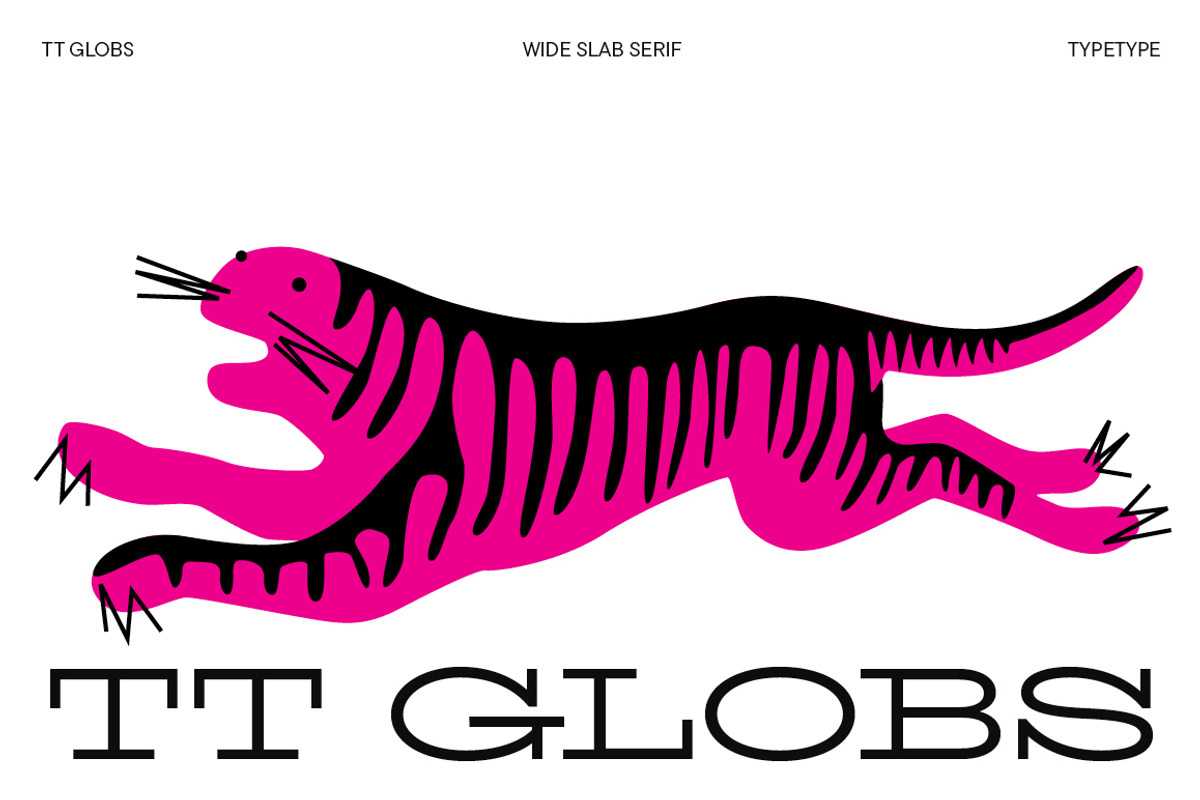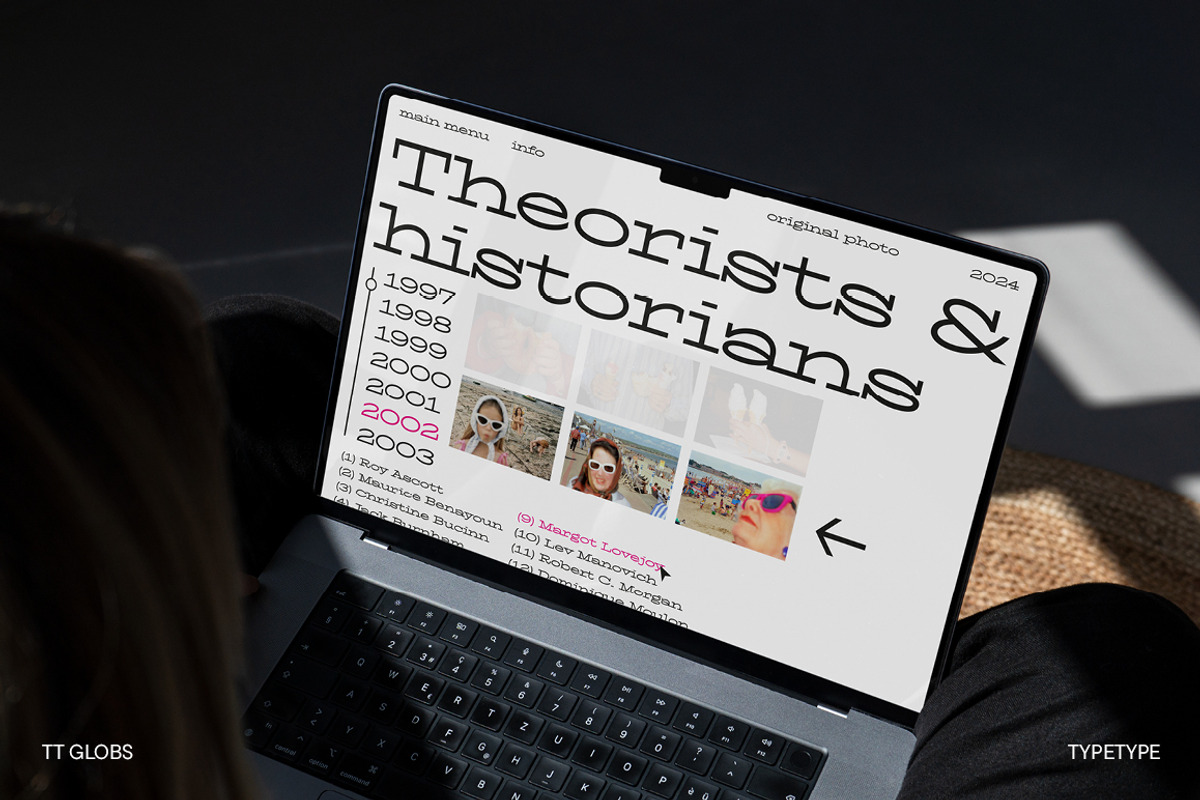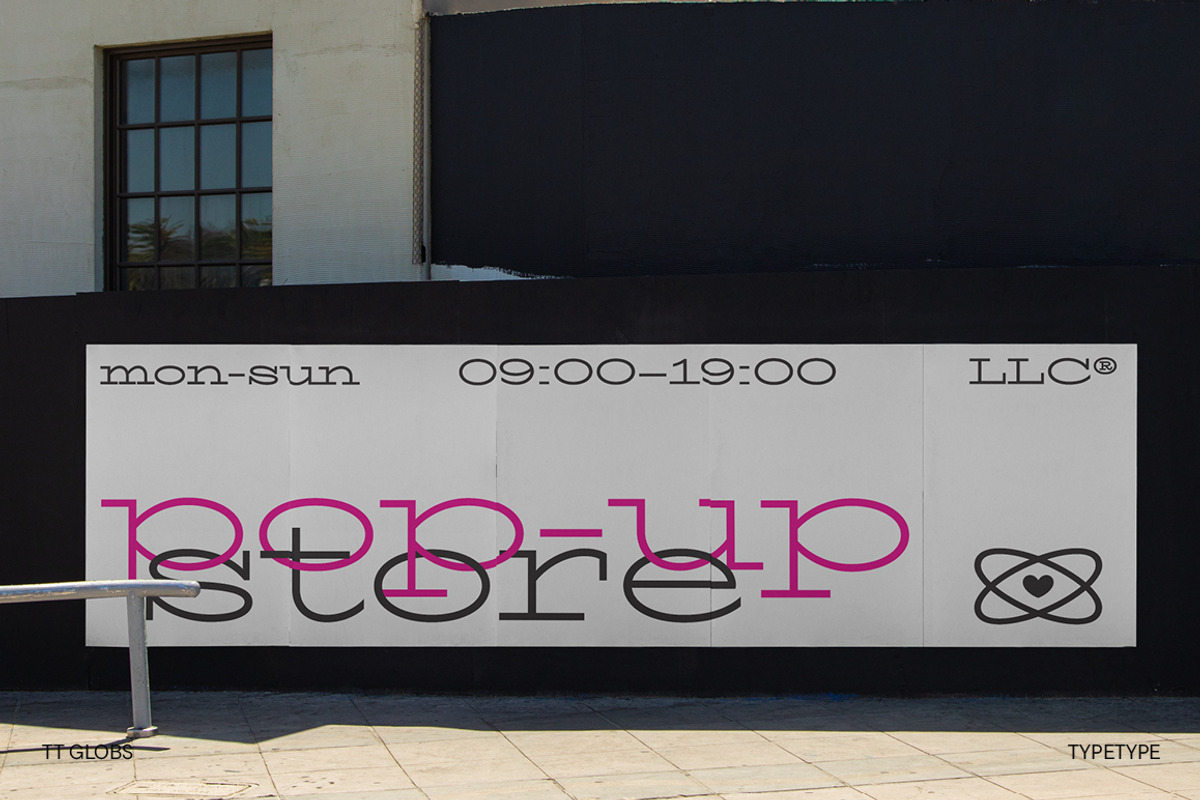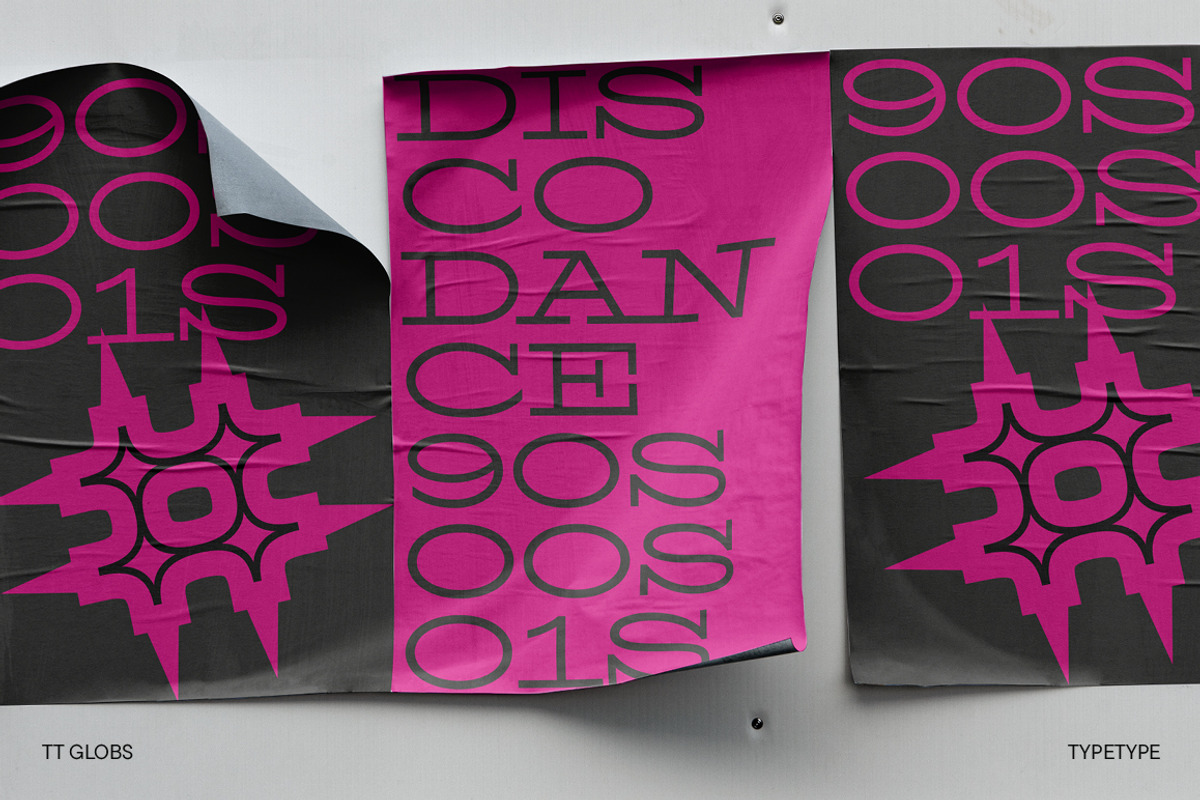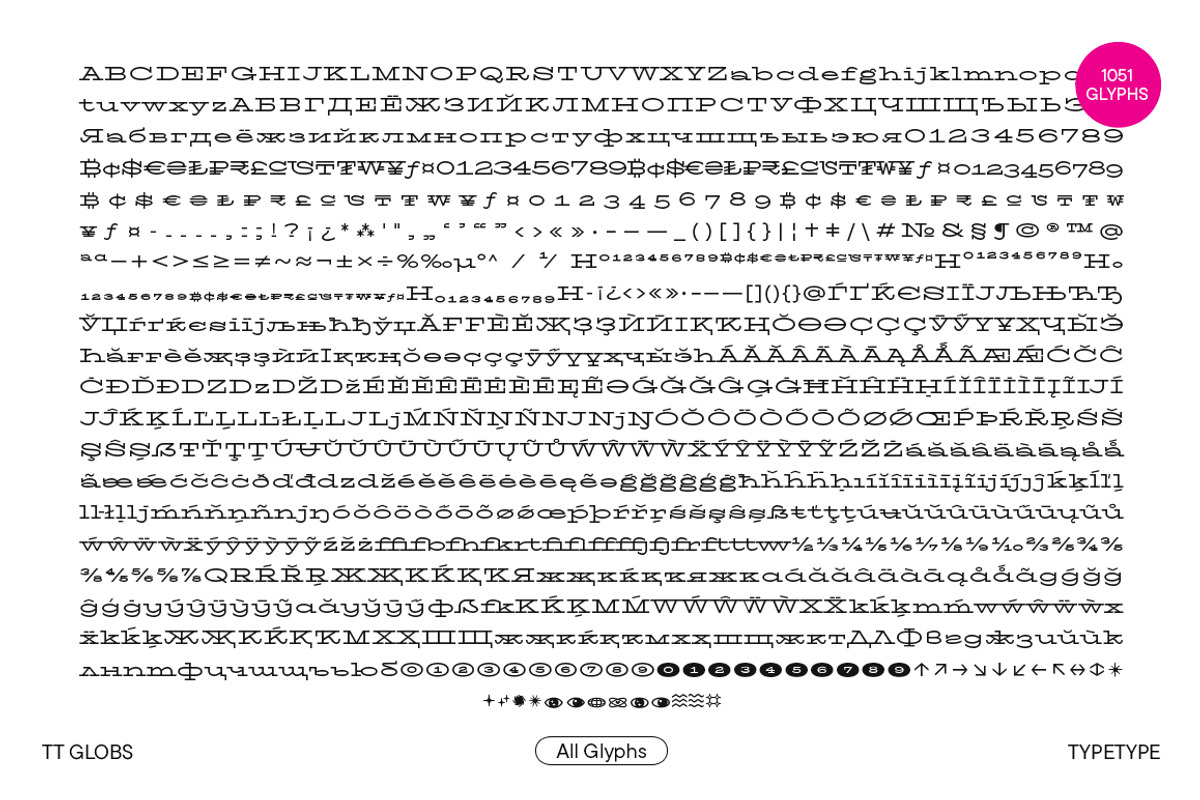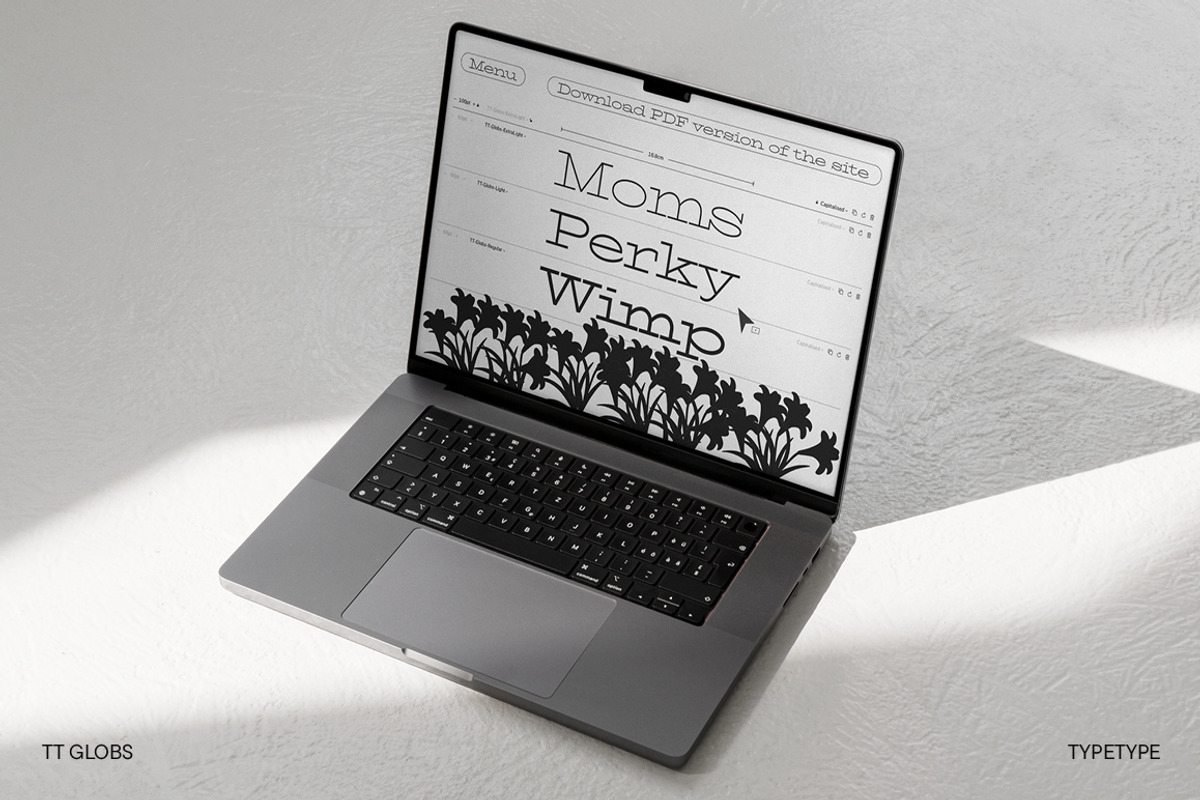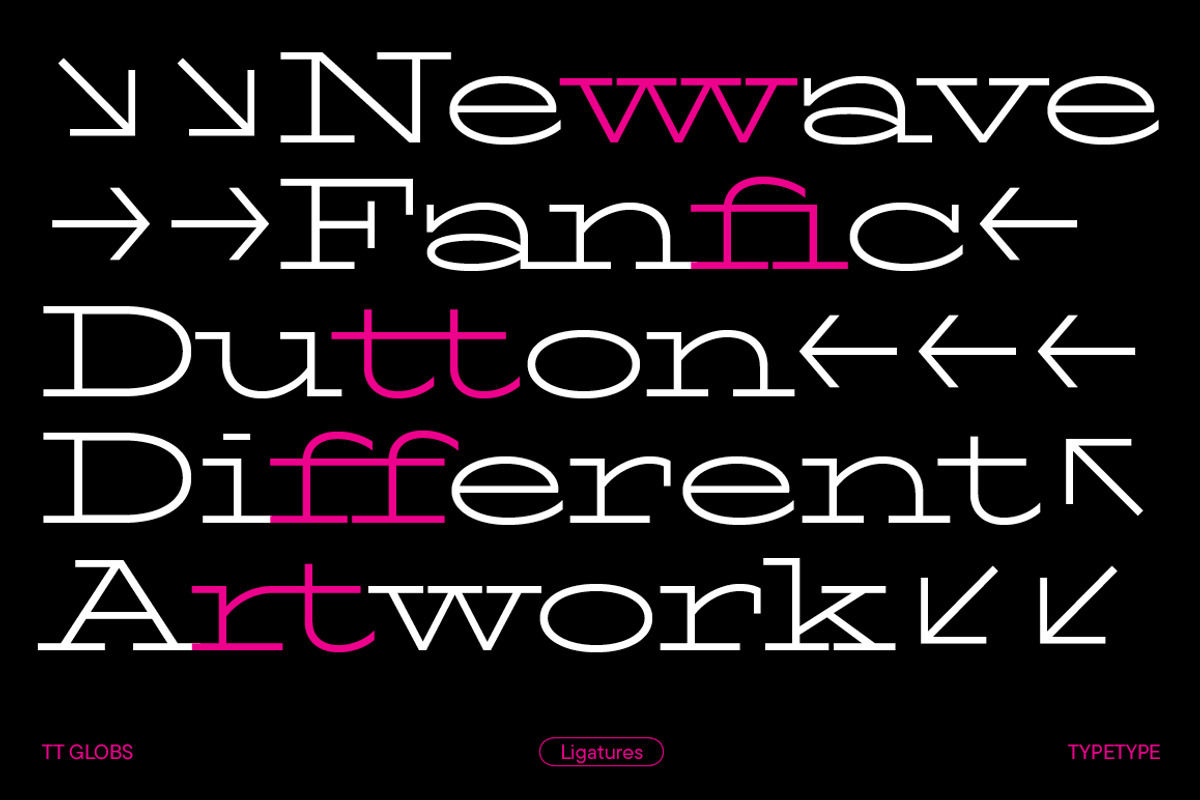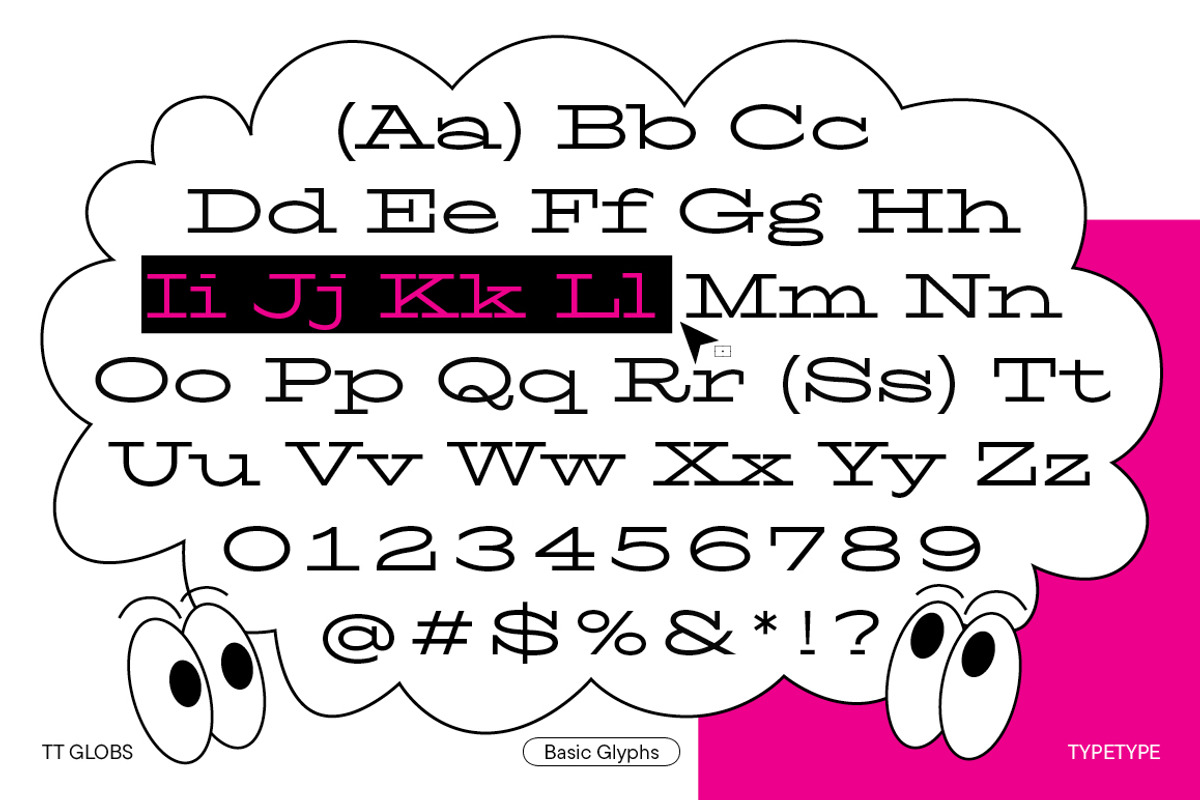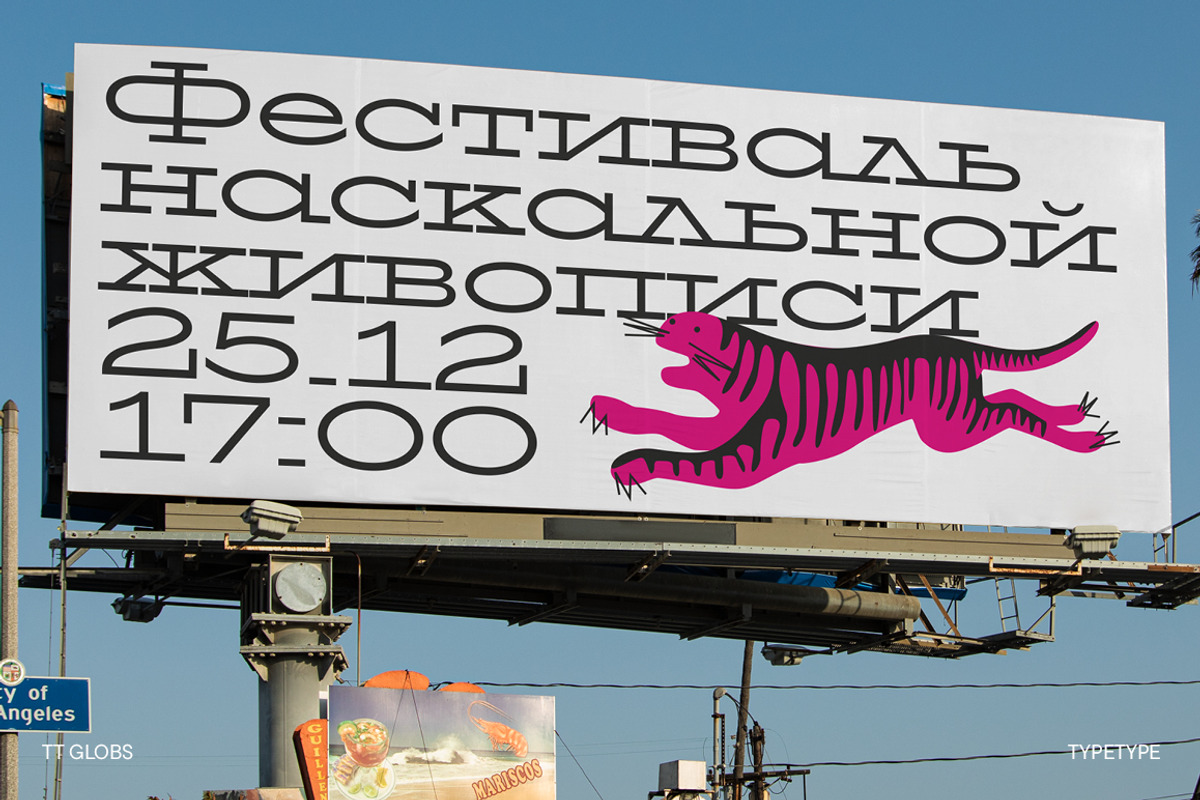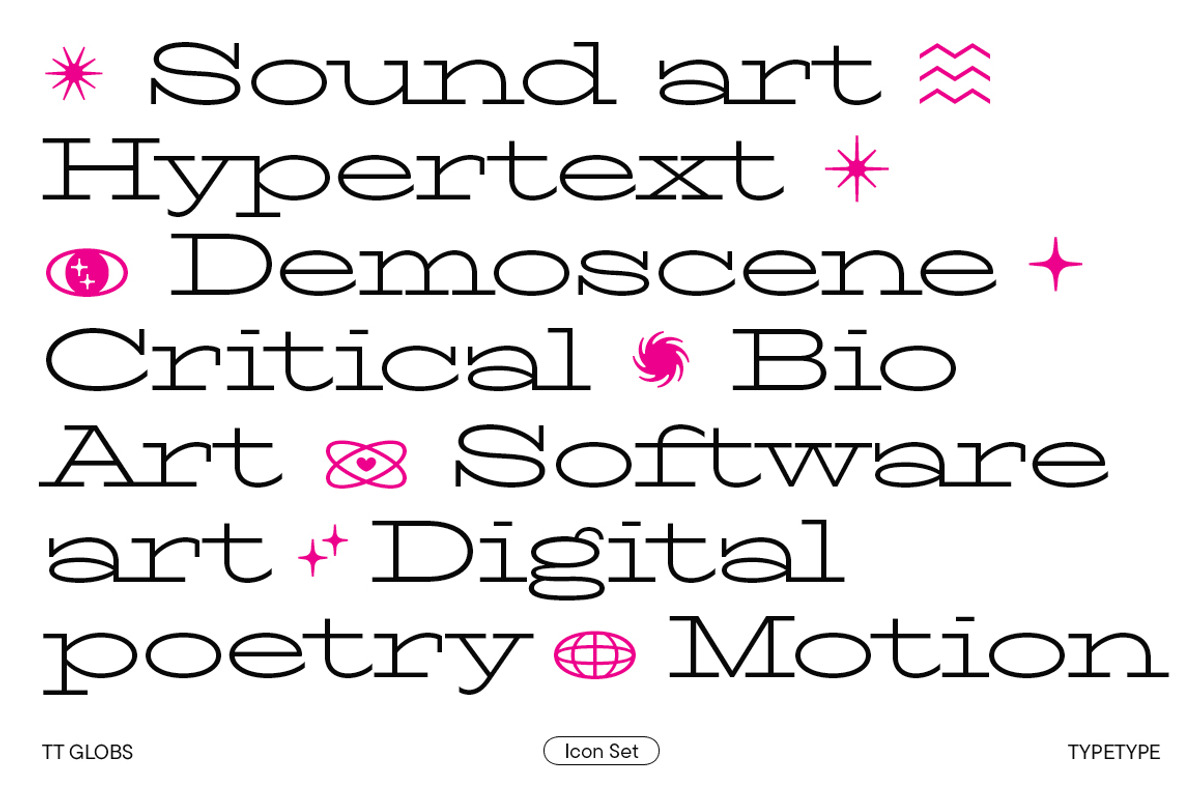
TT Globs
Introducing the updated TT Globs, which now supports Cyrillic alphabets! This charismatic typeface now boasts a significantly expanded character set and functionality.
TT Globs is a stylish, wild-proportioned slab serif with a friendly nature and summer vibes. When we designed it, we aimed to combine historical slab serif forms with modern font design concepts. As a result, we got a relevant, fresh, and distinctive designer typeface.
The key visual characteristic of TT Globs is its long serifs that, together with the "stretched" proportions, make the text setting resemble a pattern. Curiously, the vertical serifs are also quite long, which emphasizes the closed forms of glyphs and gives the font an extra flair. The typeface's asymmetrical and wave-like legs and tails, plus fluid elements in certain glyphs, add a touch of playfulness. Some characters, such as Q, R, a, s, g, ß, etc., are particularly interesting to explore.
The Cyrillic alphabet characters we integrated into the updated version of TT Globs are highly flexible and have an unusual appearance. Among the particularly intriguing details are the unconventional legs of the letters К, Ж, and Я, and the captivating terminals of the letters У, б, ф.
The updated TT Globs also has a significantly expanded character set, renewed kerning, improved hinting, and new OpenType features. We also enlarged the standard set of currency symbols, added a minuscule lettercase, and integrated fractions, figures for numerators and denominators, minuscule figures, and new stylistic sets.
TT Globs is a typeface for special occasions that will match any "font wardrobe" and introduce more variety to the simpler options. This font can easily become part of the brand identity of a music festival, a clothing or jewelry brand with a youthful appeal, a trendy bar, or a street art exhibition.
TT Globs is a bold choice for designer projects!